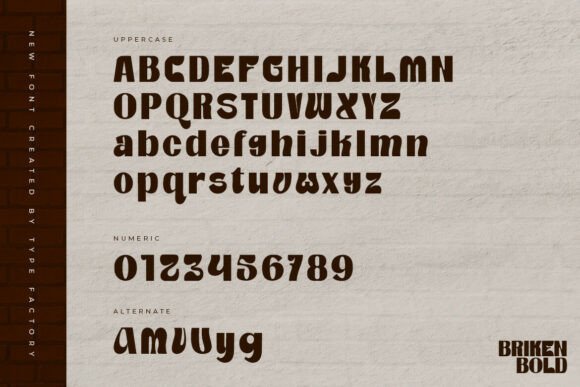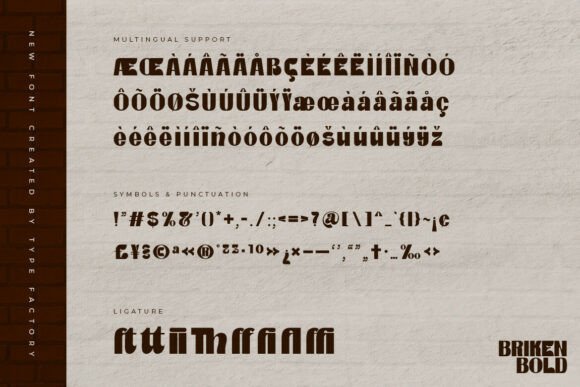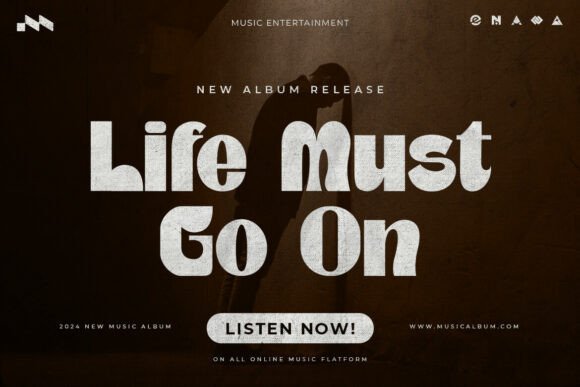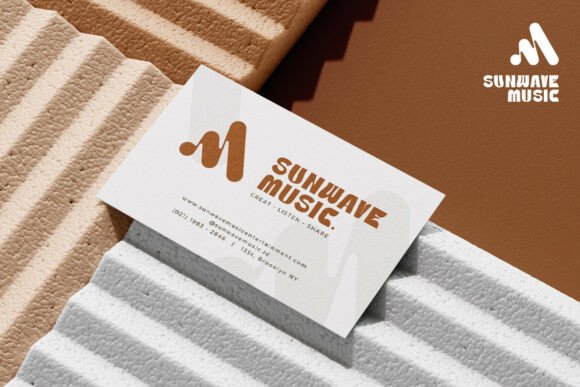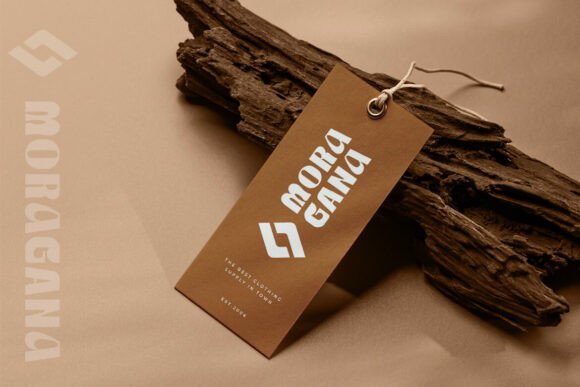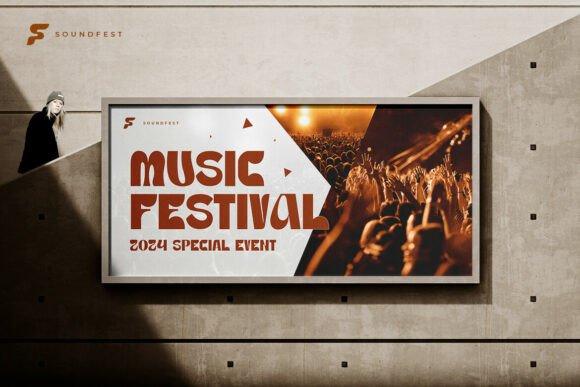
Introducing Briken Bold: The Modern Display Font for Daring Designs
In the world of typography, a font can make all the difference in creating a lasting impression. For designers and crafters looking for a bold and modern display font, Briken Bold is the perfect choice. Crafted by Type Factory, Briken Bold is a prime option for those seeking to create a daring, contemporary, and unforgettable visual identity.
The Unique Characteristics of Briken Bold
Briken Bold is more than just a font; it’s a statement. Each glyph is meticulously designed to exude a strong yet elegant aesthetic, making it ideally suited for a variety of design applications. The font features a unique and bold Sans characteristics, which sets it apart from other fonts in the market.
Perfect for Creating a Lasting Impression
With Briken Bold, you can create a distinctive and memorable look for your brand. The font is perfect for designers and crafters who want to make a statement with their designs. Whether you’re working on a logo design, headline, or title, Briken Bold is the perfect choice.
Ideal Applications for Briken Bold
Briken Bold is a versatile font that can be used in a variety of design applications, including:
- Logo Design: Give your brand a distinctive and memorable look with Briken Bold. The font’s bold and modern characteristics make it perfect for creating a lasting impression.
- Headlines & Titles: Create eye-catching titles for posters, magazines, or websites with Briken Bold. The font’s elegant and strong aesthetic makes it perfect for grabbing attention.
- Branding & Advertising: Perfect for modern advertising campaigns that demand visual impact. Briken Bold is sure to make your brand stand out from the crowd.
- Product Packaging: Ensure your product stands out on the shelf with captivating typography. Briken Bold is the perfect choice for product packaging design.
- Editorial & Web Design: Enhance the visual appeal of your content with Briken Bold. The font is perfect for creating a modern and daring visual identity.
Why Choose Briken Bold?
So, why choose Briken Bold over other fonts? Here are just a few reasons:
- Unique and Bold Design: Briken Bold features a unique and bold design that sets it apart from other fonts.
- Elegant Aesthetic: The font’s elegant aesthetic makes it perfect for creating a sophisticated and modern visual identity.
- Versatile: Briken Bold is a versatile font that can be used in a variety of design applications.
- High-Quality: The font is crafted with high-quality design principles, ensuring that it looks great in any design.
In conclusion, Briken Bold is a modern display font that is perfect for designers and crafters looking to create a daring, contemporary, and unforgettable visual identity. With its unique and bold Sans characteristics, Briken Bold is the perfect choice for a variety of design applications. Whether you’re working on a logo design, headline, or title, Briken Bold is sure to make a lasting impression.